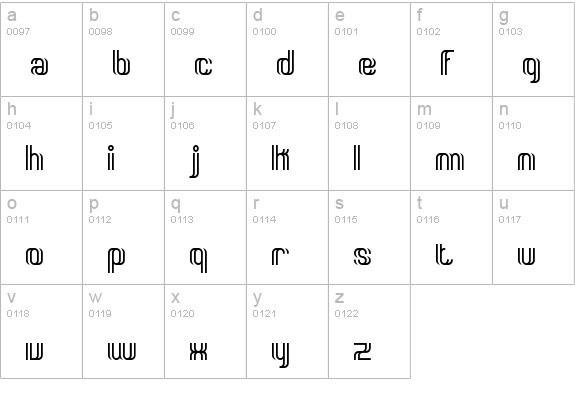
Dyphusion BRK Font Details
Dyphusion BRK font is a modern and stylish typeface that exudes creativity and innovation. With its sleek lines and edgy design, this font is perfect for adding a contemporary touch to any project. The unique fusion of sharp angles and smooth curves creates a dynamic look that is sure to make a statement. What's even better is that Dyphusion BRK font is completely free to download at FontsMarket.com. Whether you're working on a graphic design project, branding materials, or any other creative endeavor, this font will bring a fresh and exciting vibe to your work. Don't miss out on the opportunity to enhance your designs with this versatile and eye-catching font. Download Dyphusion BRK font today and let your creativity soar!